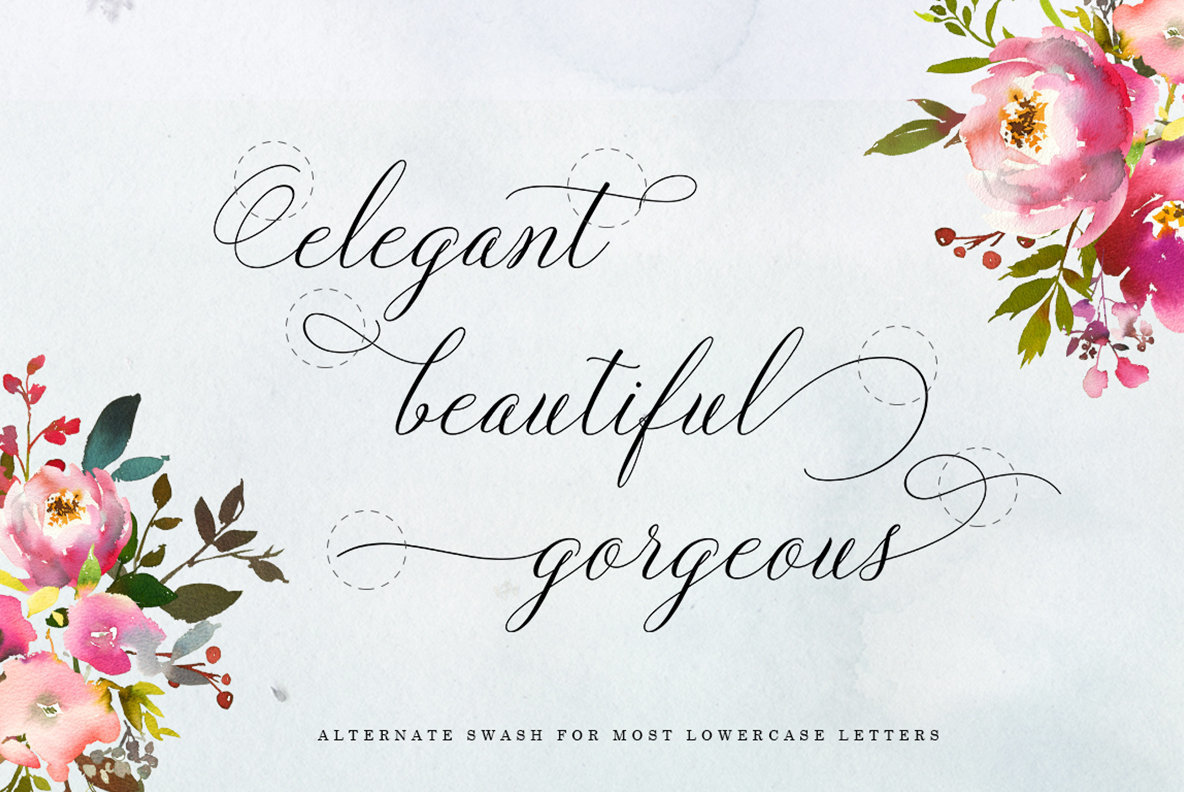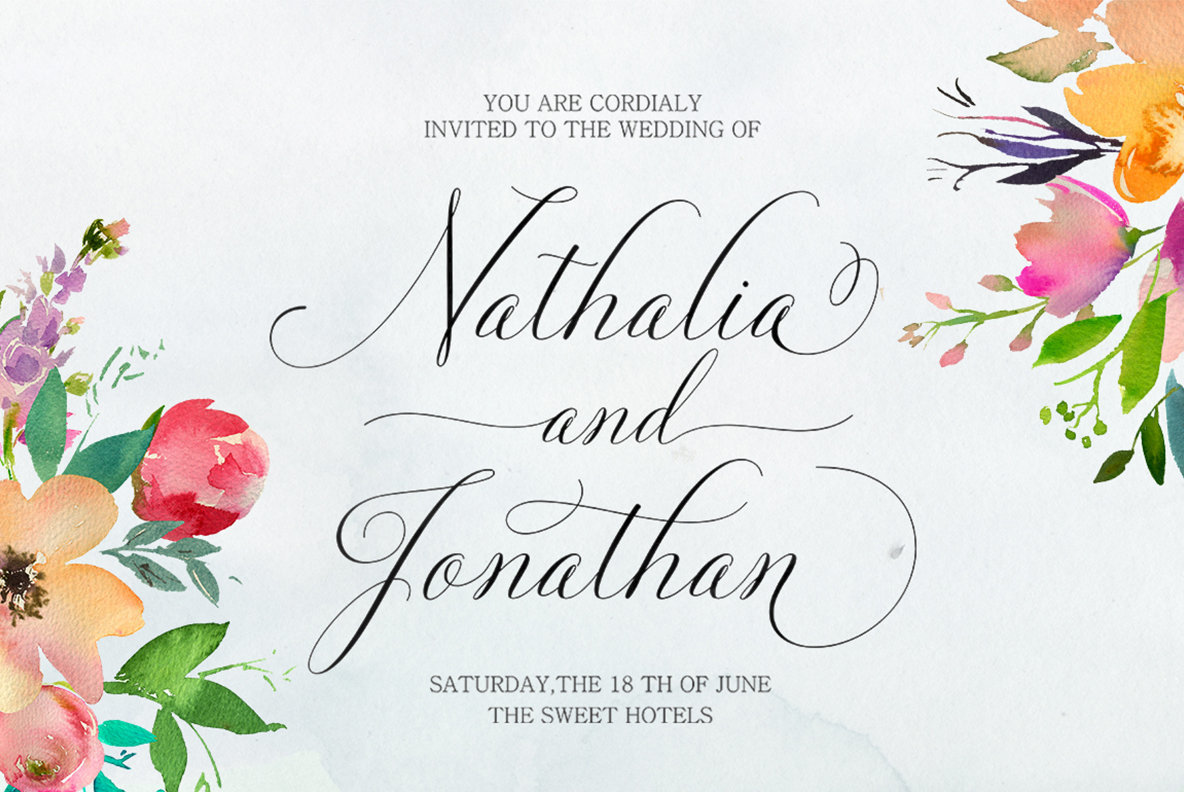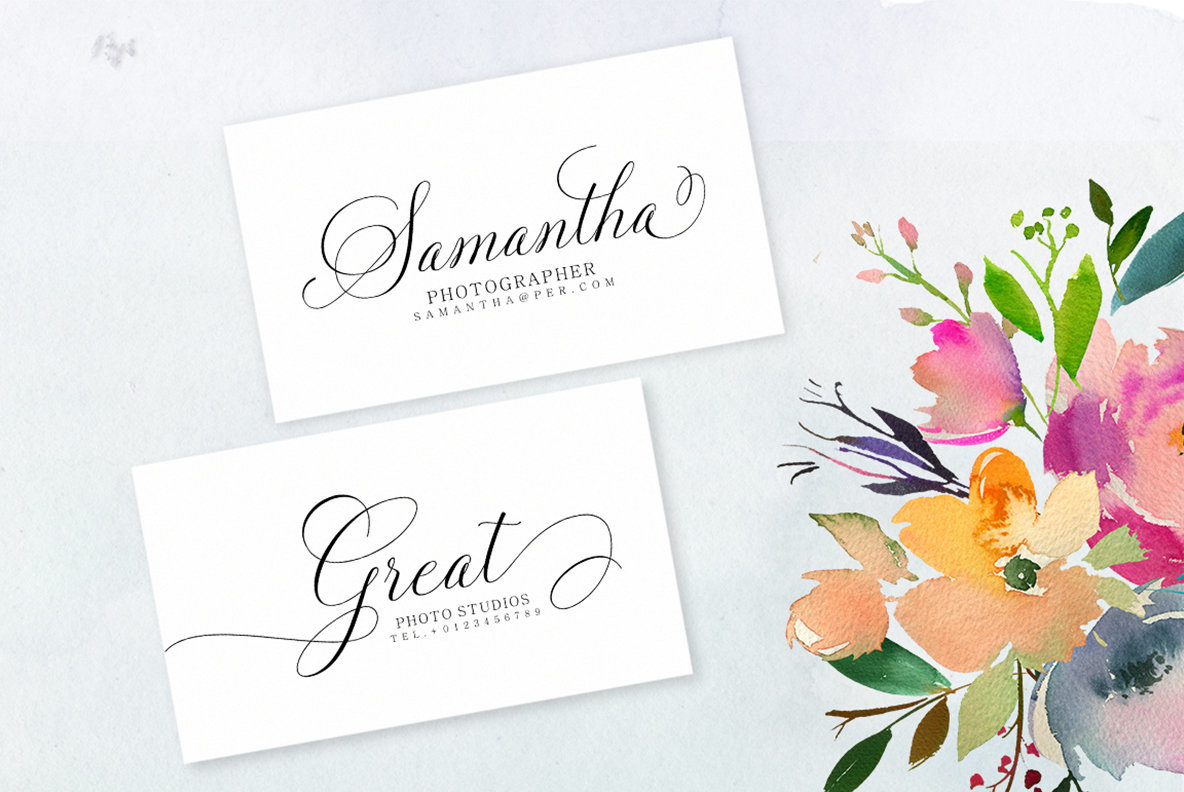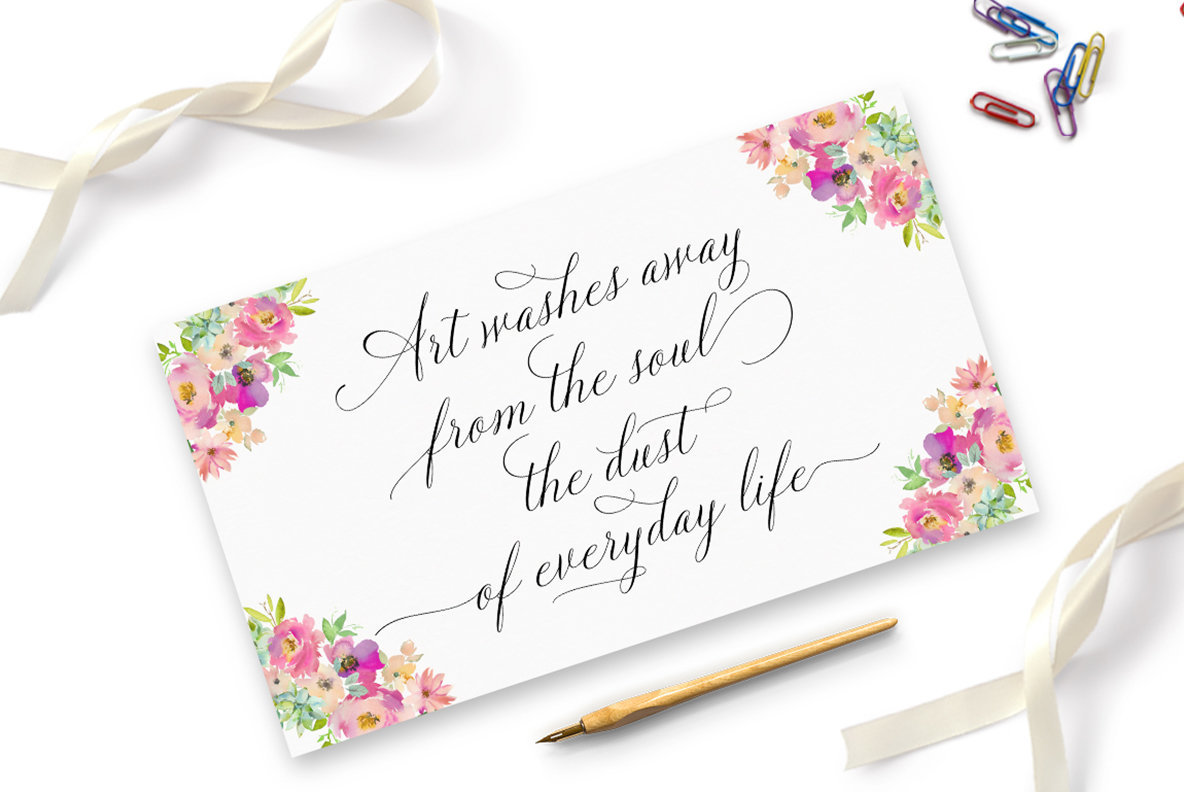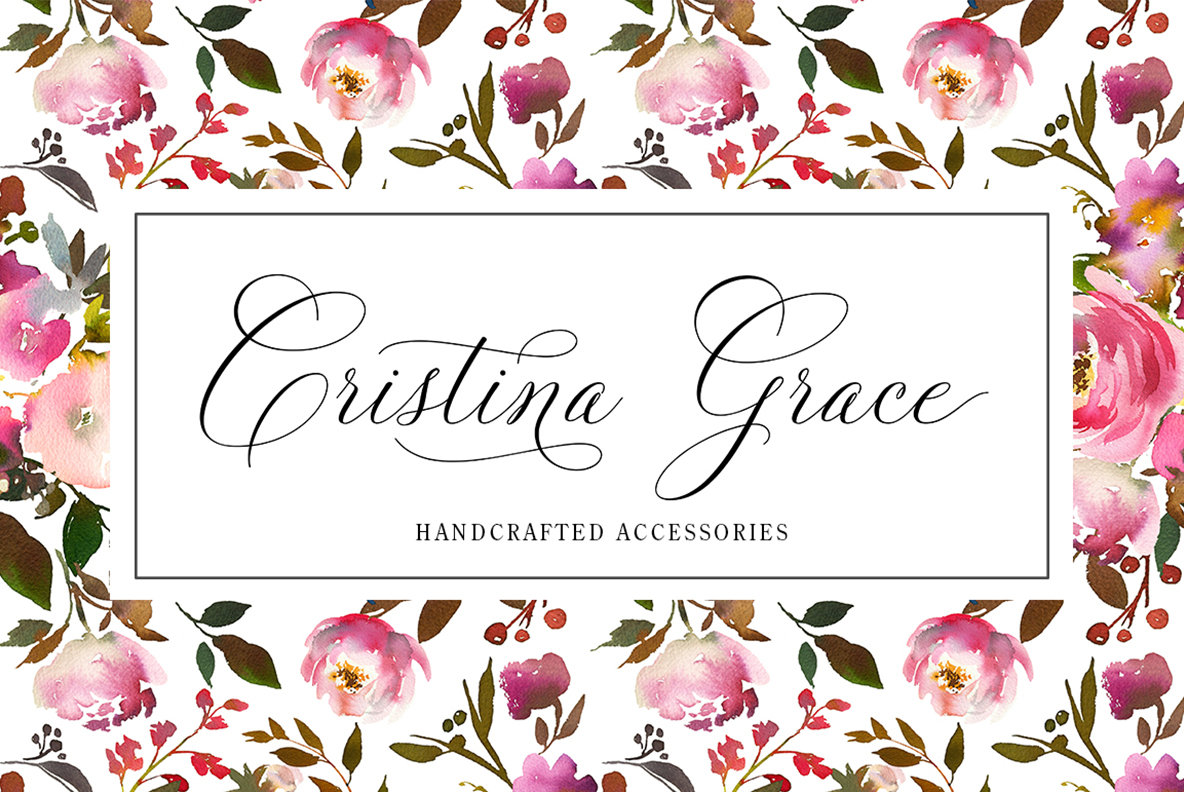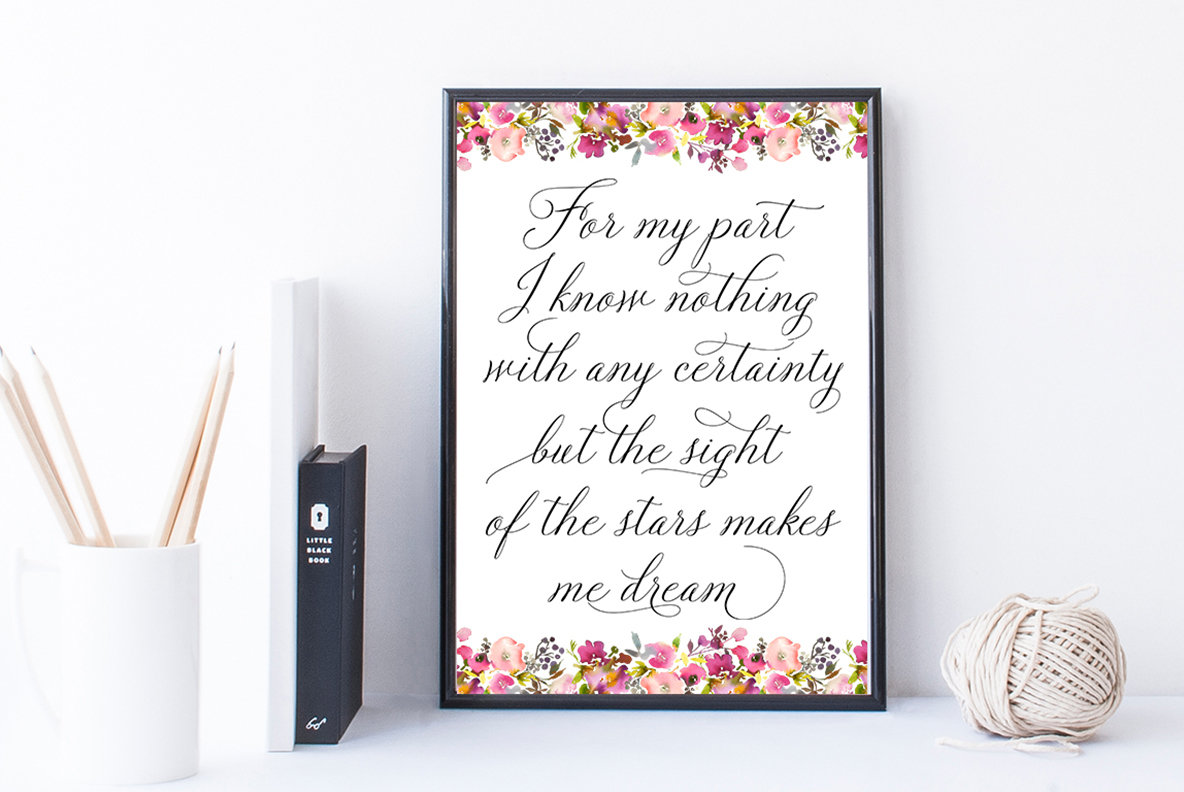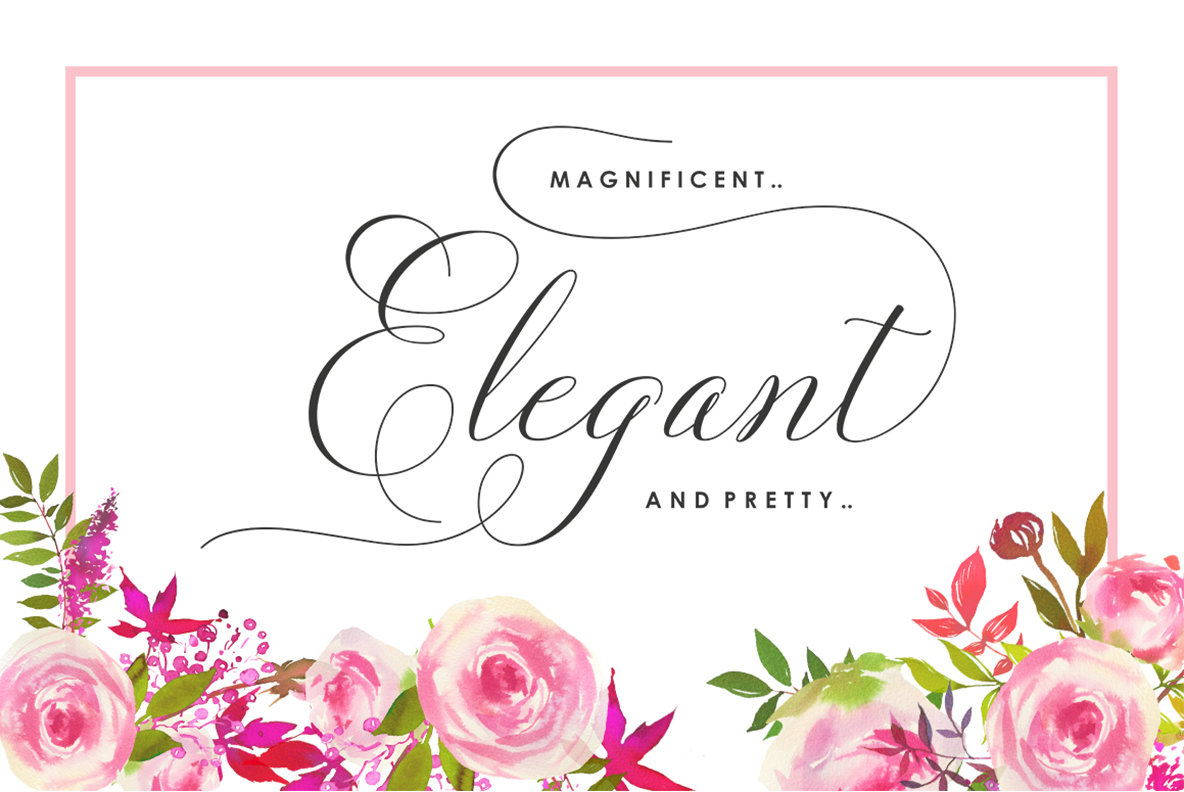
Solidaritha Script Font
Solidaritha Script Regular
Discover the elegance and versatility of Solidaritha Script, a modern calligraphy font designed to enhance a variety of projects. Characterized by its varying baseline, smooth lines, and classic elegance, this font is ideal for headings, signatures, logos, wedding invitations, t-shirts, letterheads, signage, labels, posters, badges, and more. Features: For those looking to maximize the potential of Solidaritha Script, activating OpenType Stylistic alternates is a breeze with programs like Adobe Illustrator CS, Adobe InDesign, CorelDraw X6-X7, and Microsoft Word 2010 and beyond. Additional flexibility can be found using tools such as Character Map (Windows), Nexus Font (Windows), Font Book (Mac), or PopChar (Windows and Mac). Experience the charm of Solidaritha Script today.Solidaritha Script: A Modern Calligraphy Font